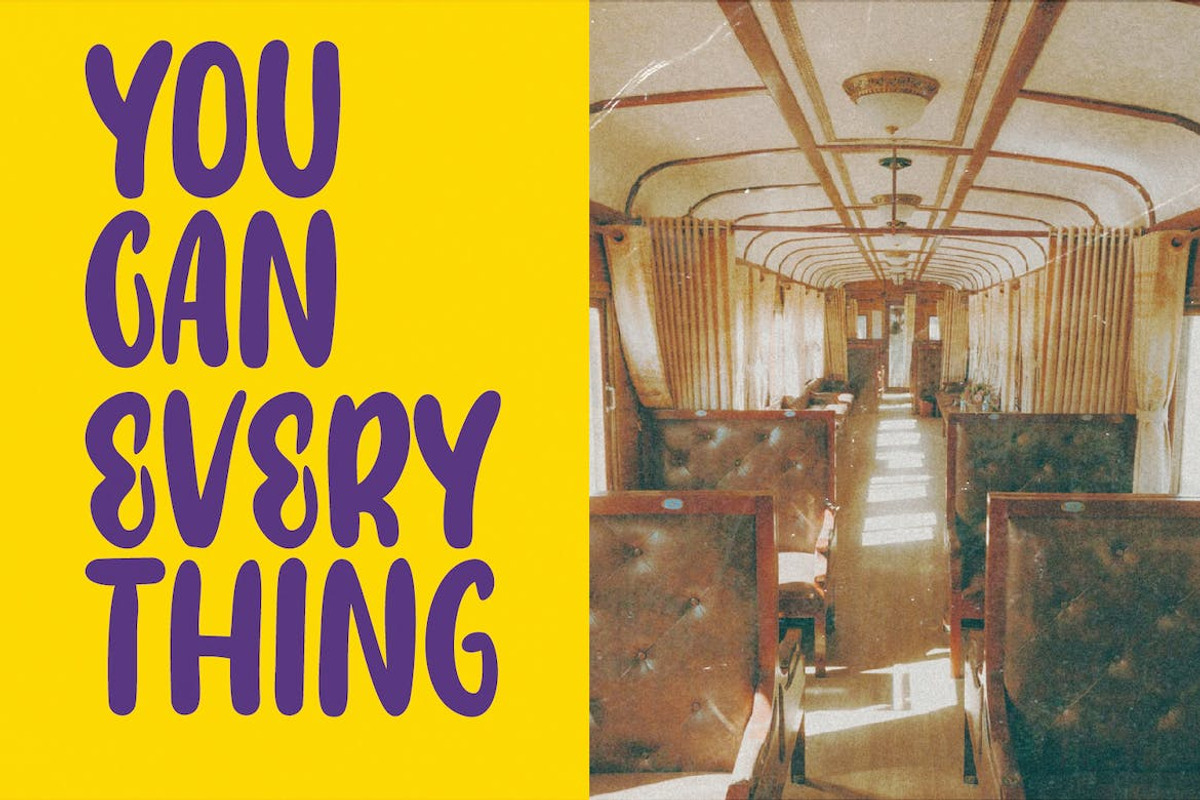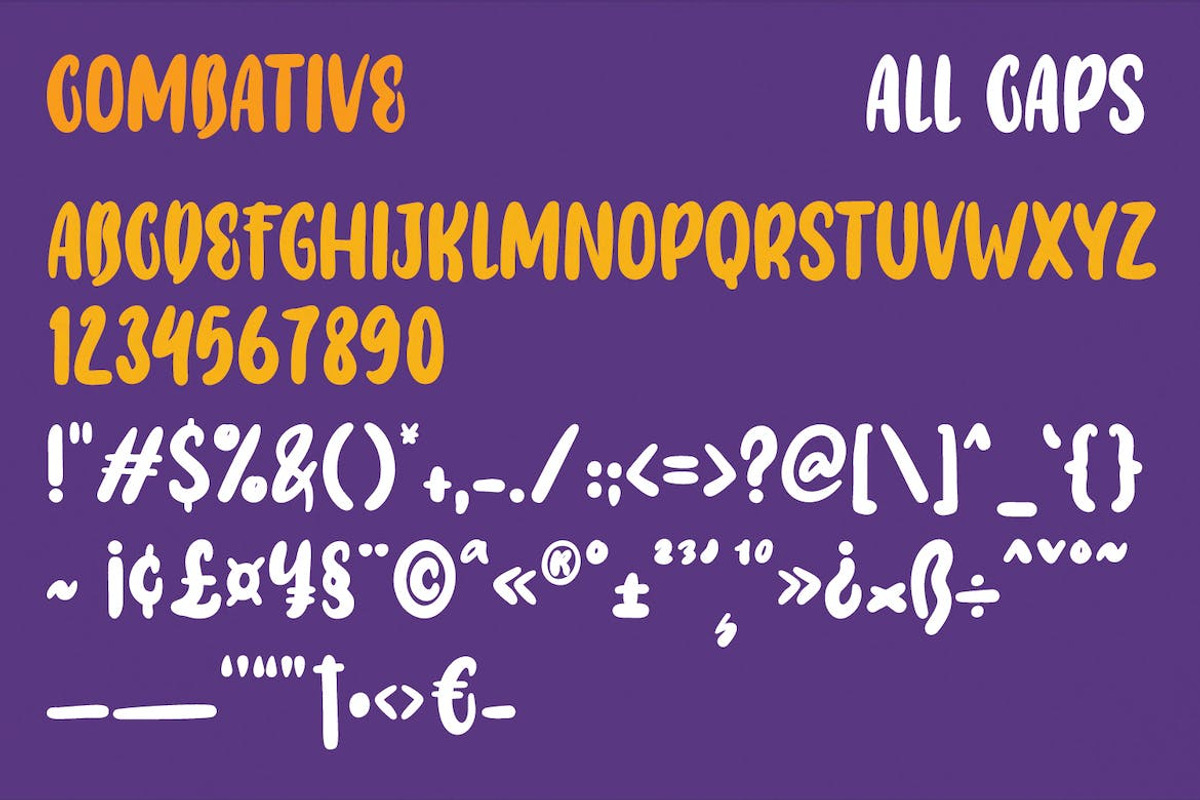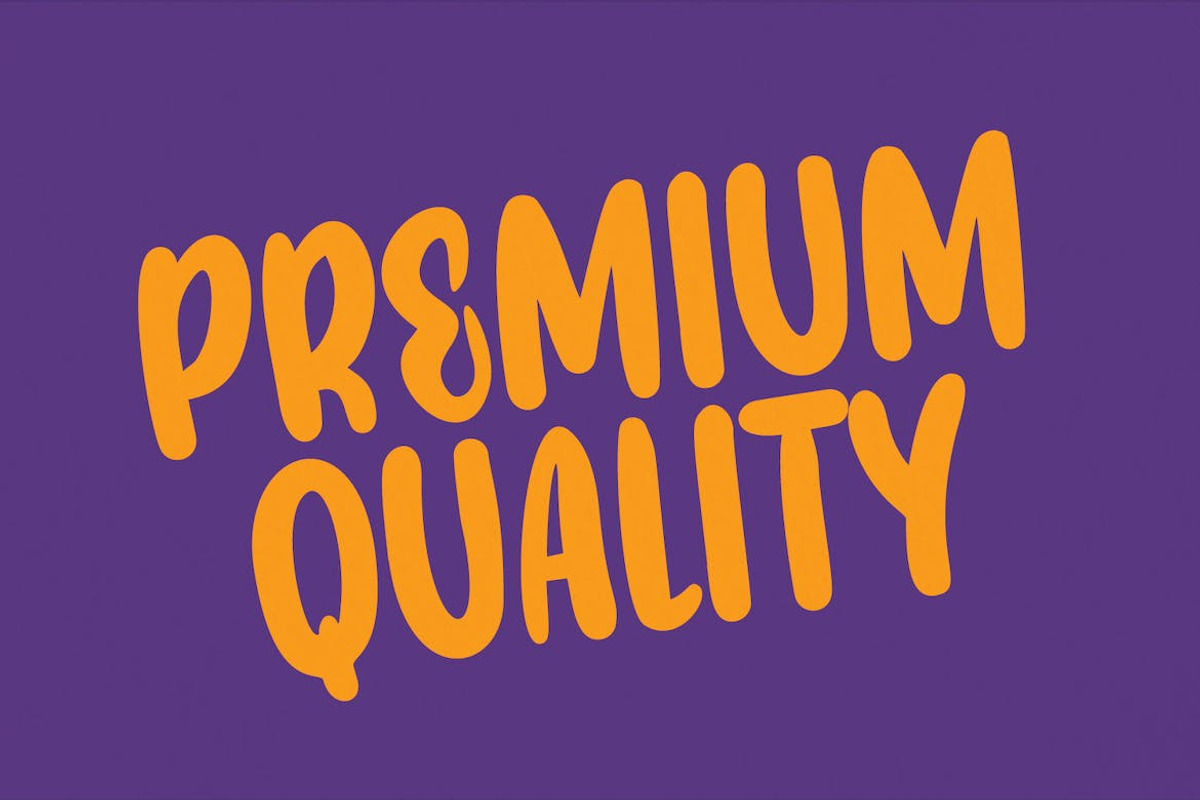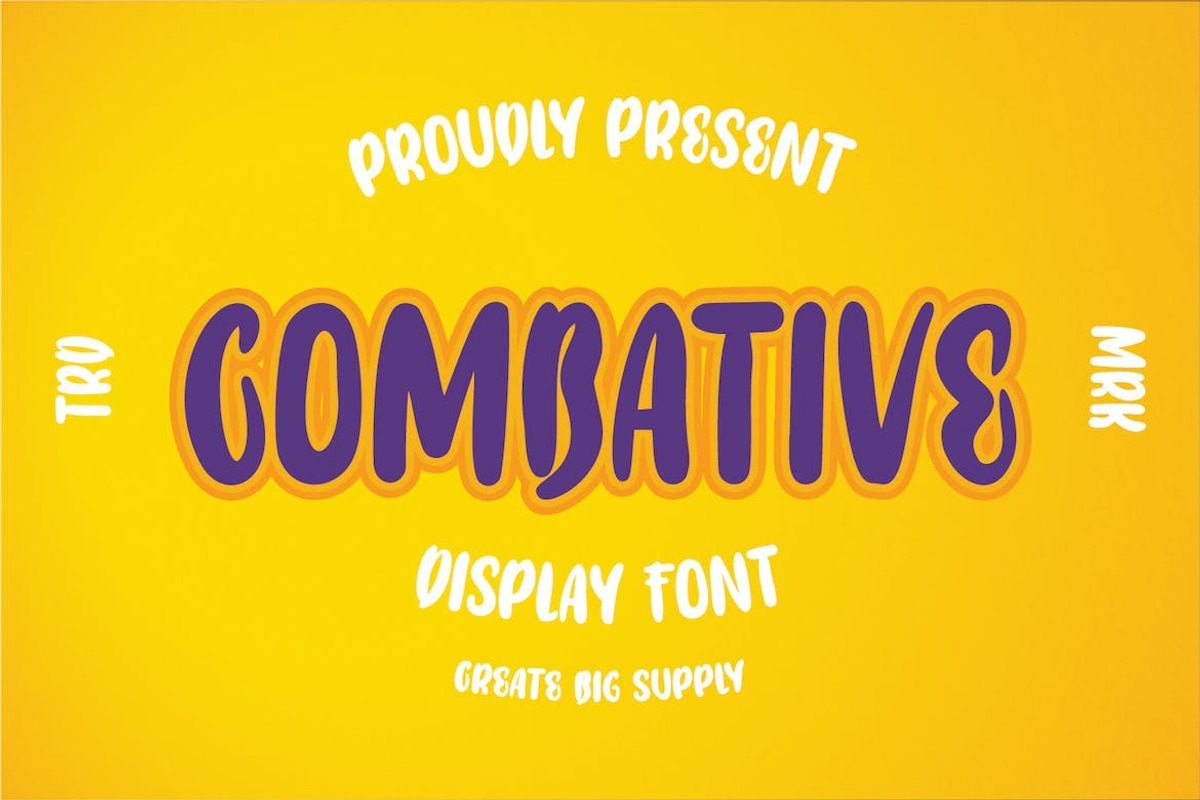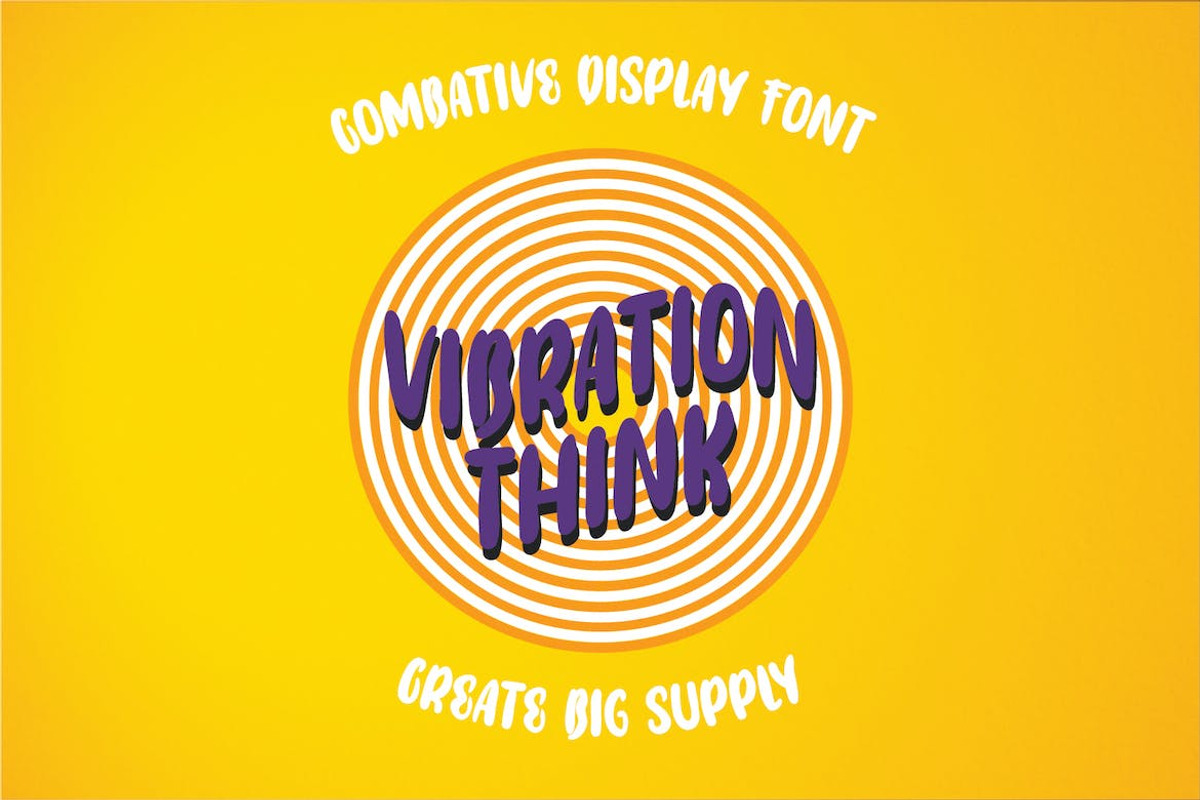
Combative - Versatile Display Font
Discover the power of Combative, a striking display font designed to make a bold statement. With its unique style, this font is perfect for creating impactful logos and various other formal designs such as invitations, labels, magazines, books, greeting cards, packaging, fashion, stationery, and more. Combative adds a touch of sophistication to any project, whether it's advertising or branding. Featuring both uppercase and lowercase letters, numbers, punctuation marks, multilingual support, and PUA encoding, Combative provides endless creative possibilities for your design needs.